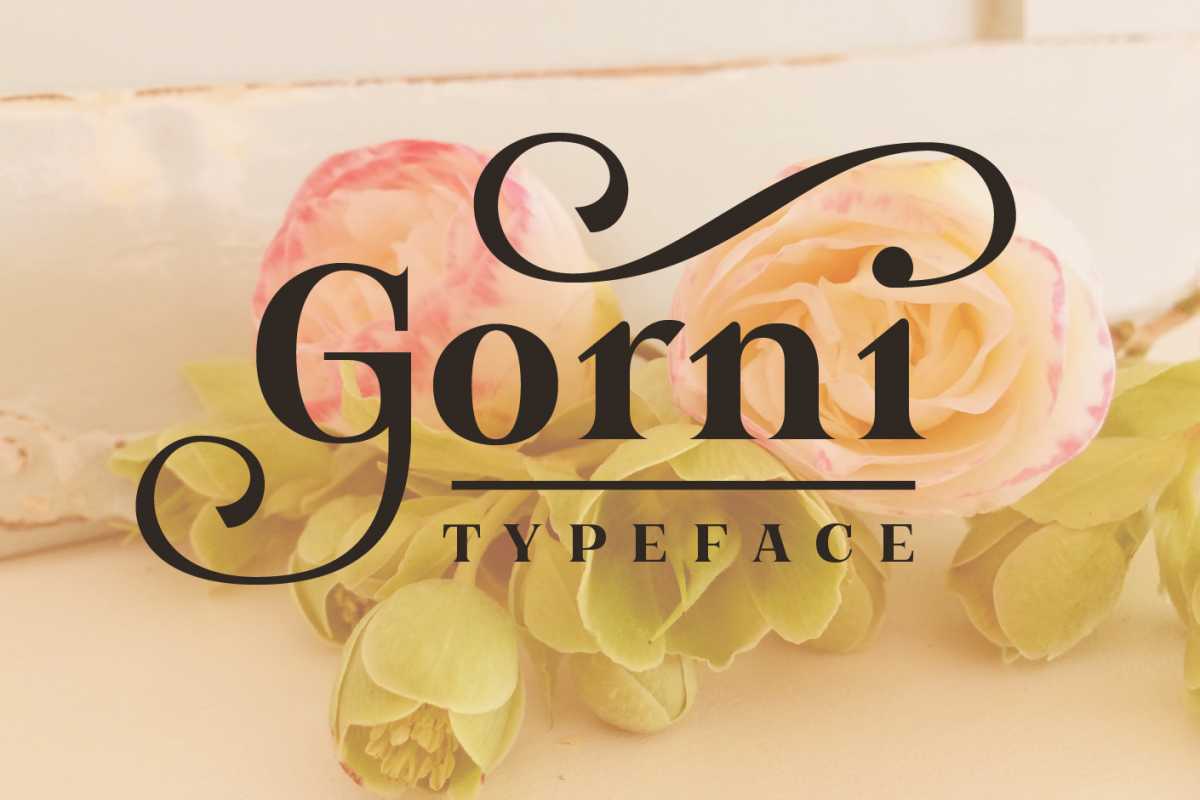
Gorni Typeface
Gorni
GorniSC
Gorni typeface is a display serif font with a romantic vibe. Includes:
• Special ligatures
• Swashes and alternates
• Open Type features
• Both Regular (382 glyphs) and Small Capitals (290 glyphs) version
• Punctuation special glyphs, numbers and symbols
I really liked this whole font family.
I used this for my Gothic Vampire eBook novella "Darkness without End" and it was perfect.
Very pretty font, I have reached overload on brush style fonts and needed something clean but without too much flair. This perfectly filled that need!